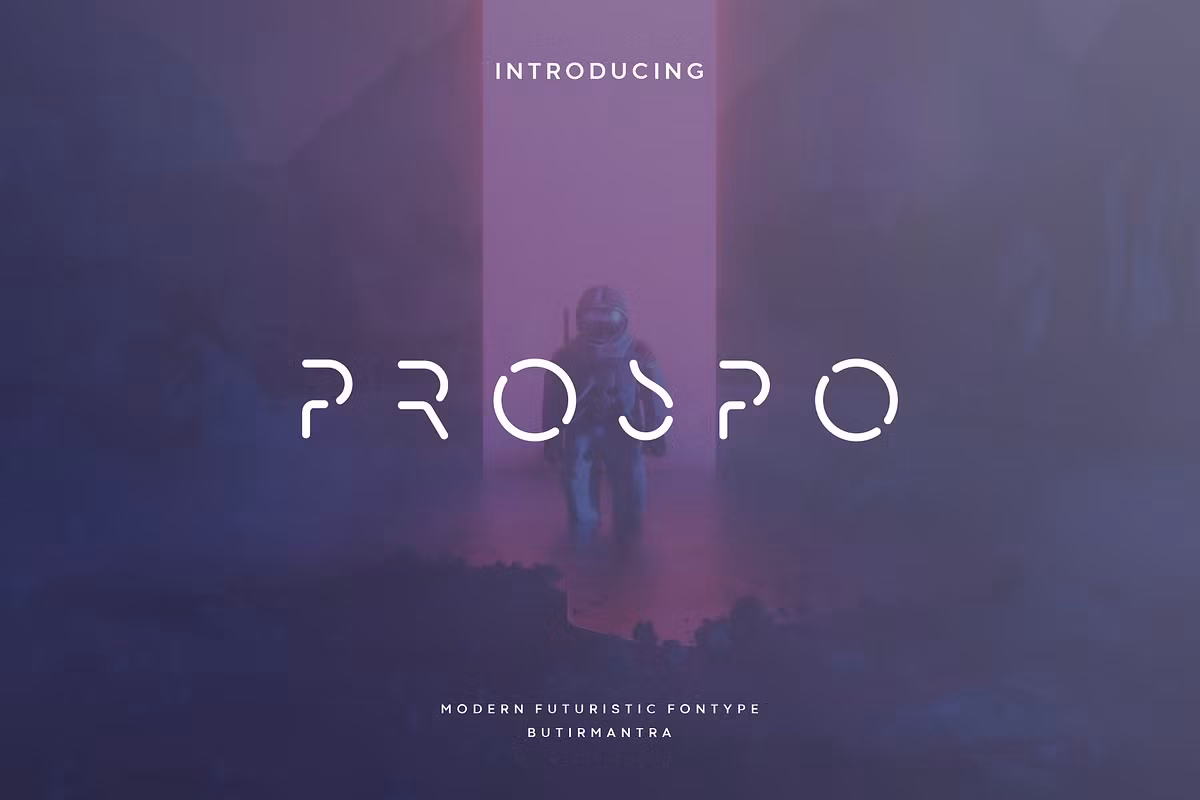
Prospo - Modern Futuristic Typeface Free Download is a sleek and cutting-edge typeface designed to evoke a sense of modernity and innovation. With its clean lines, geometric shapes, and futuristic flair, Prospo is perfect for technology branding, sci-fi designs, website headers, and any project that needs a bold, forward-thinking aesthetic.
Prospo - Modern Futuristic Typeface Free Download brings a futuristic, sleek vibe to your typography, making it ideal for tech startups, digital products, and high-tech advertisements. Whether you’re creating a logo, designing a website, or crafting promotional materials, Prospo adds an advanced, contemporary edge to your designs. Download it today and give your projects a modern, futuristic touch with Prospo!